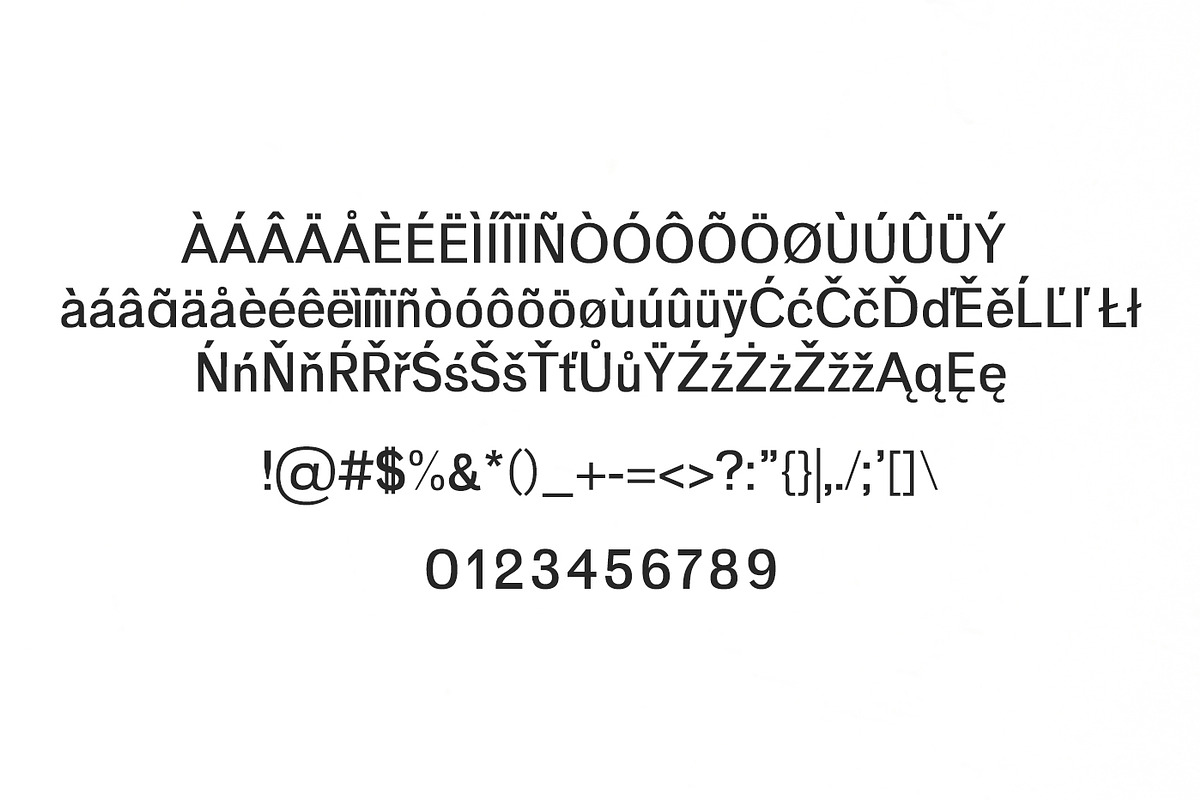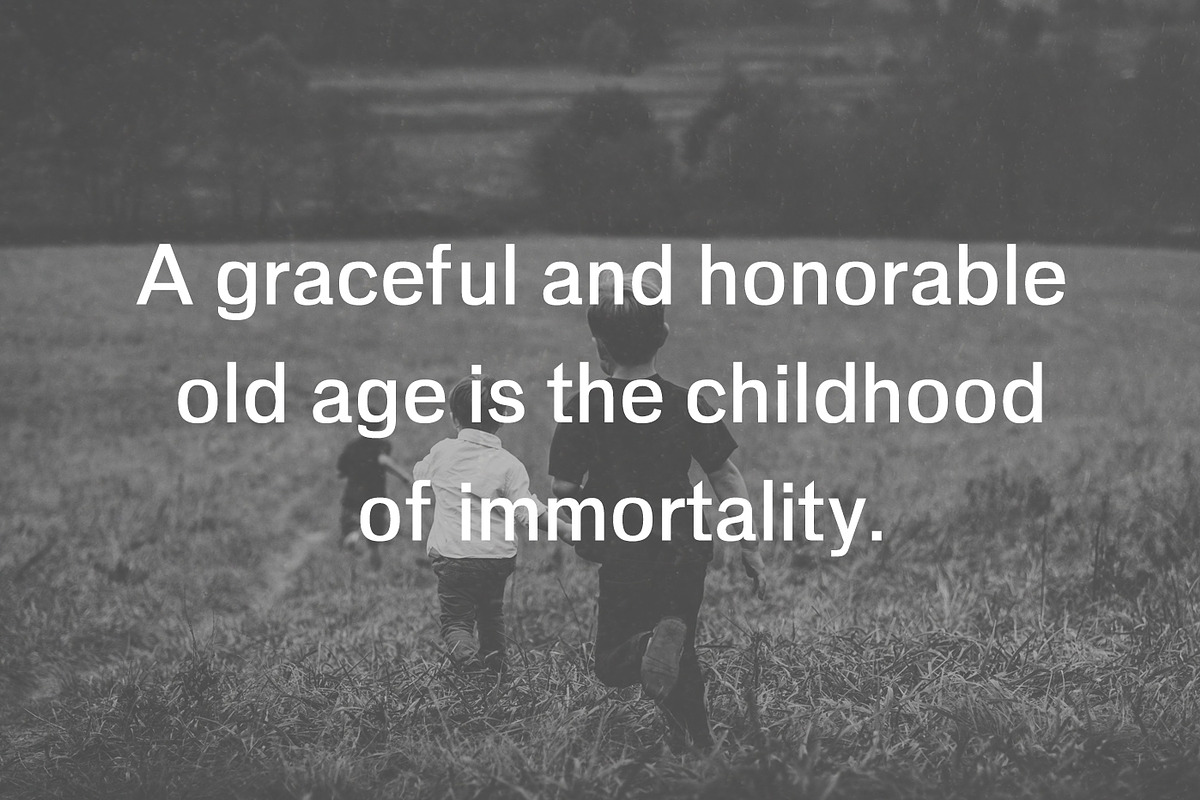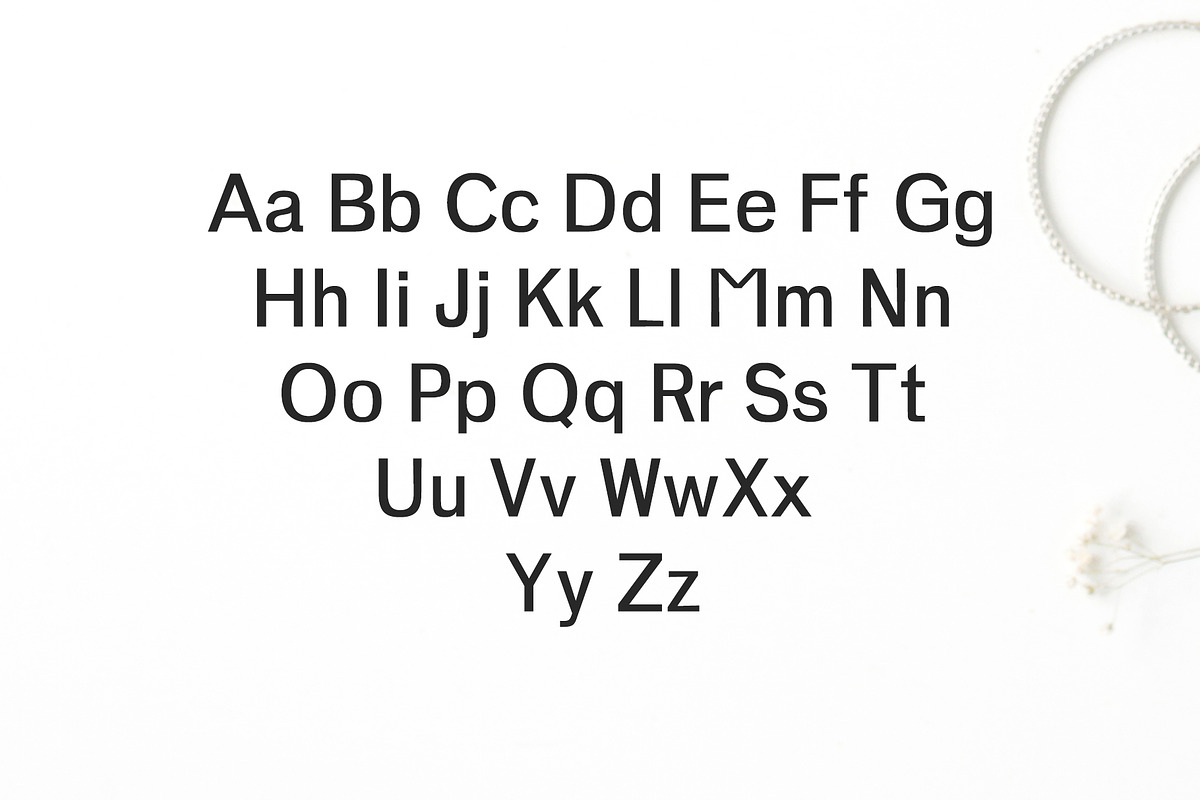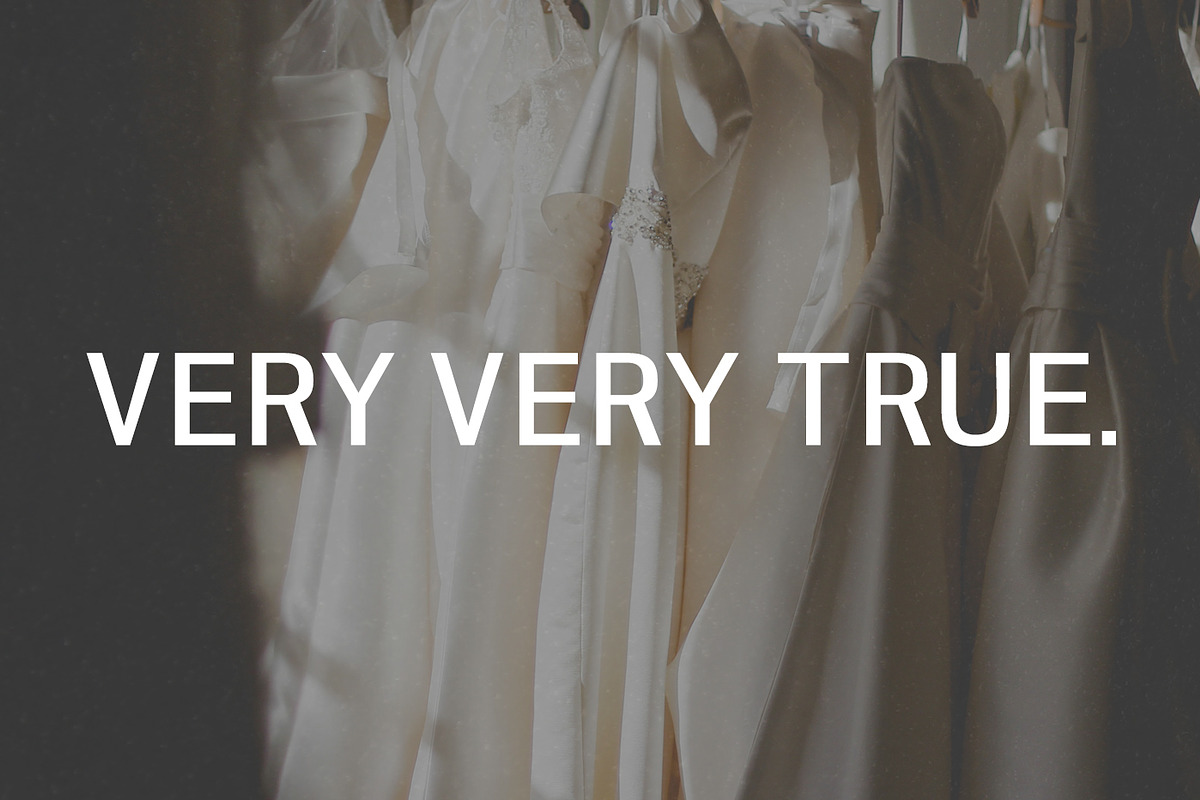
Adley Sans Serif 3 Font Family Pack
Adley Sans Serif 3 Font Family Pack by Creativetacos is a font selected for branding, posters, packaging, typography.
- Regular, Light, and Black Weights
- Adley Light
- Adley Regular
- Adley Black
Why Adley Sans Serif 3 Font Family Pack is worth a look
Adley Sans Serif 3 Font Family Pack by Creativetacos fits naturally into Branding, posters, packaging, typography.